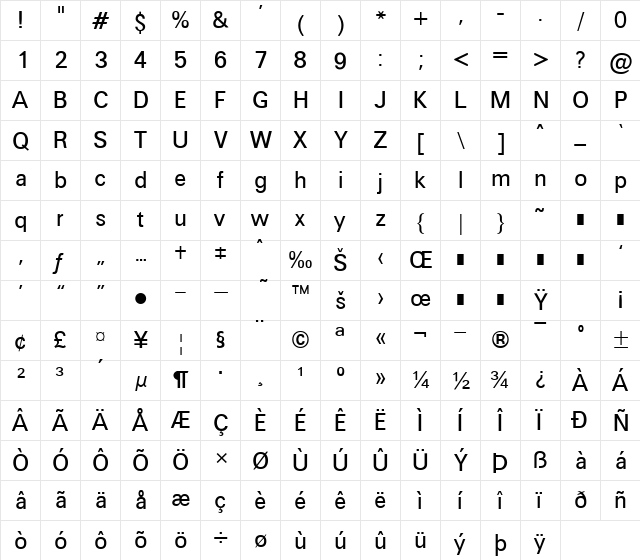
Unv Regular
Design Context for Unv Typeface
Unv offers clean, dependable letterforms without strong stylistic allegiance, making it a practical choice for designers who need flexibility.
Pro Tip: Use Unv in both headline and body roles to test its range before committing to a single application.